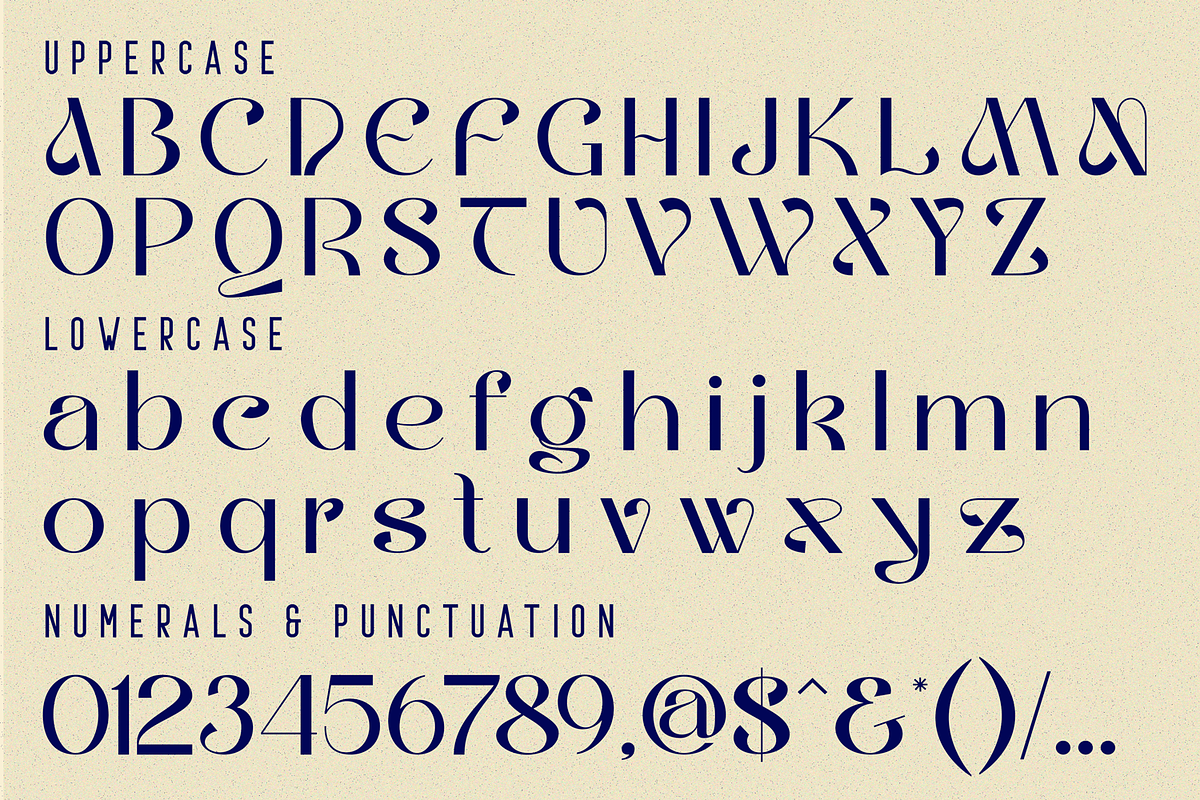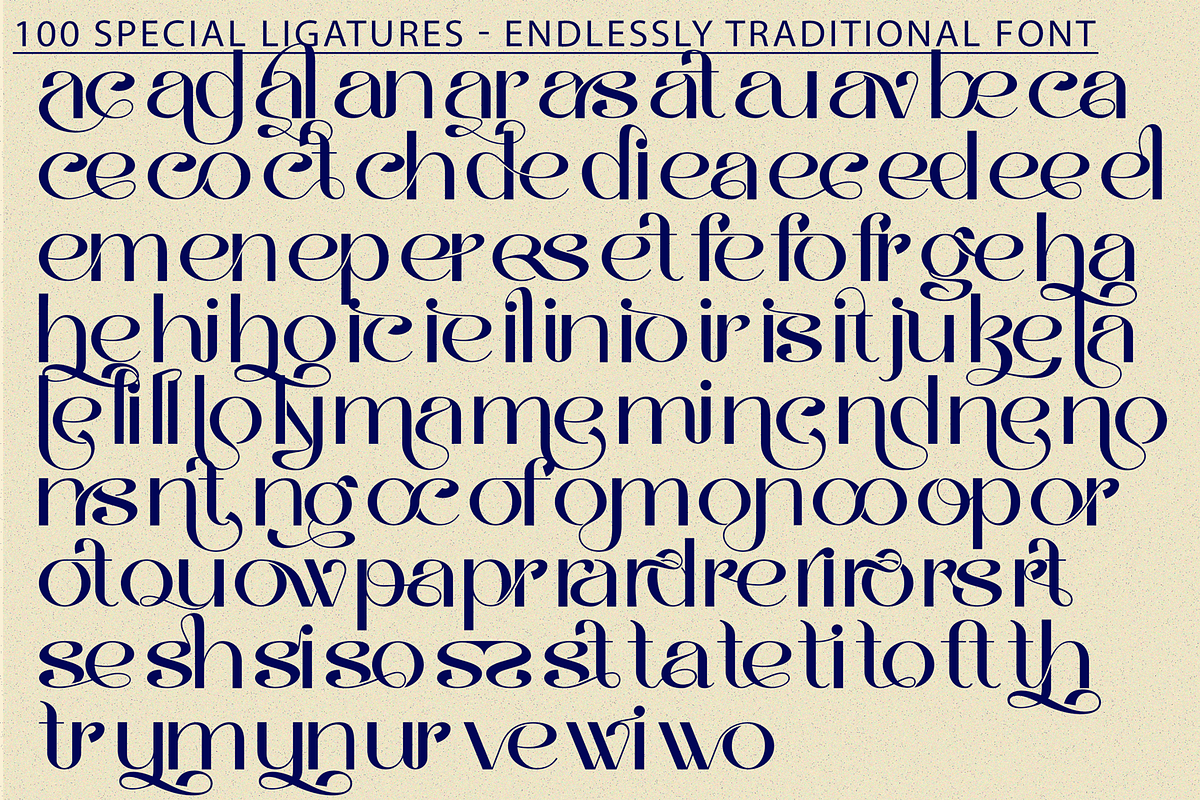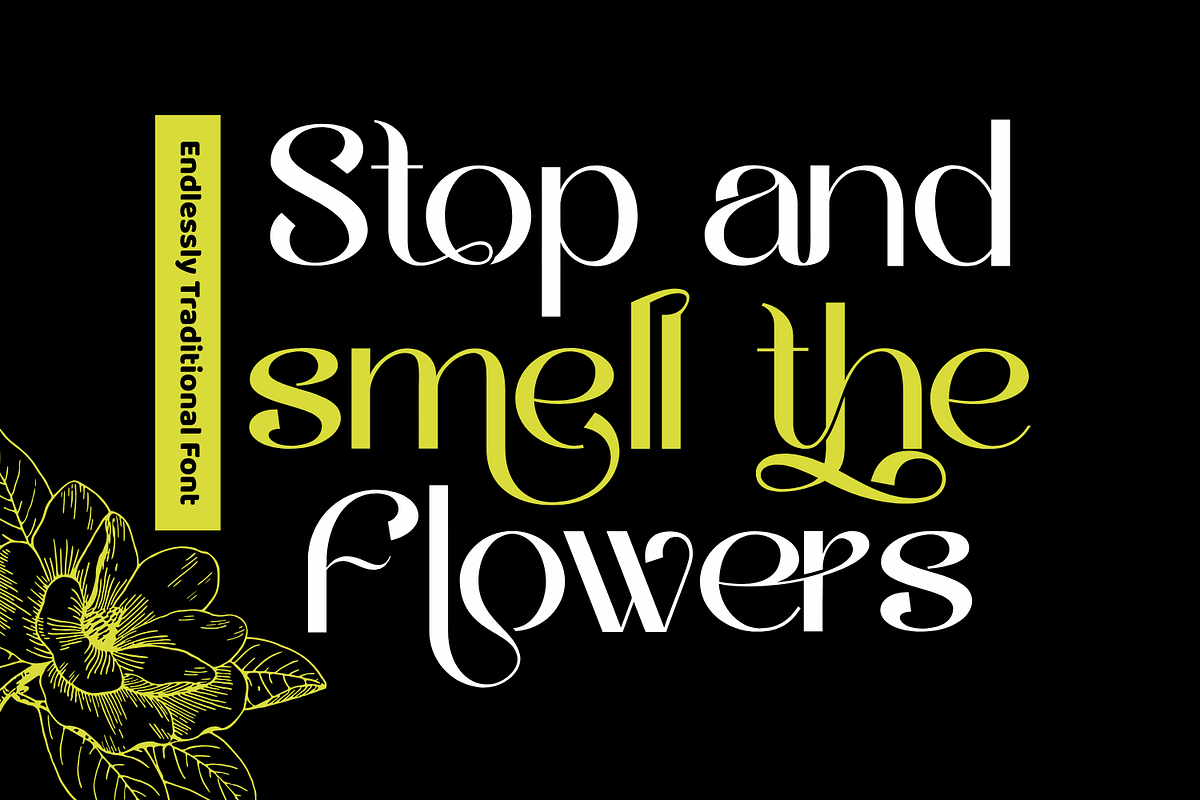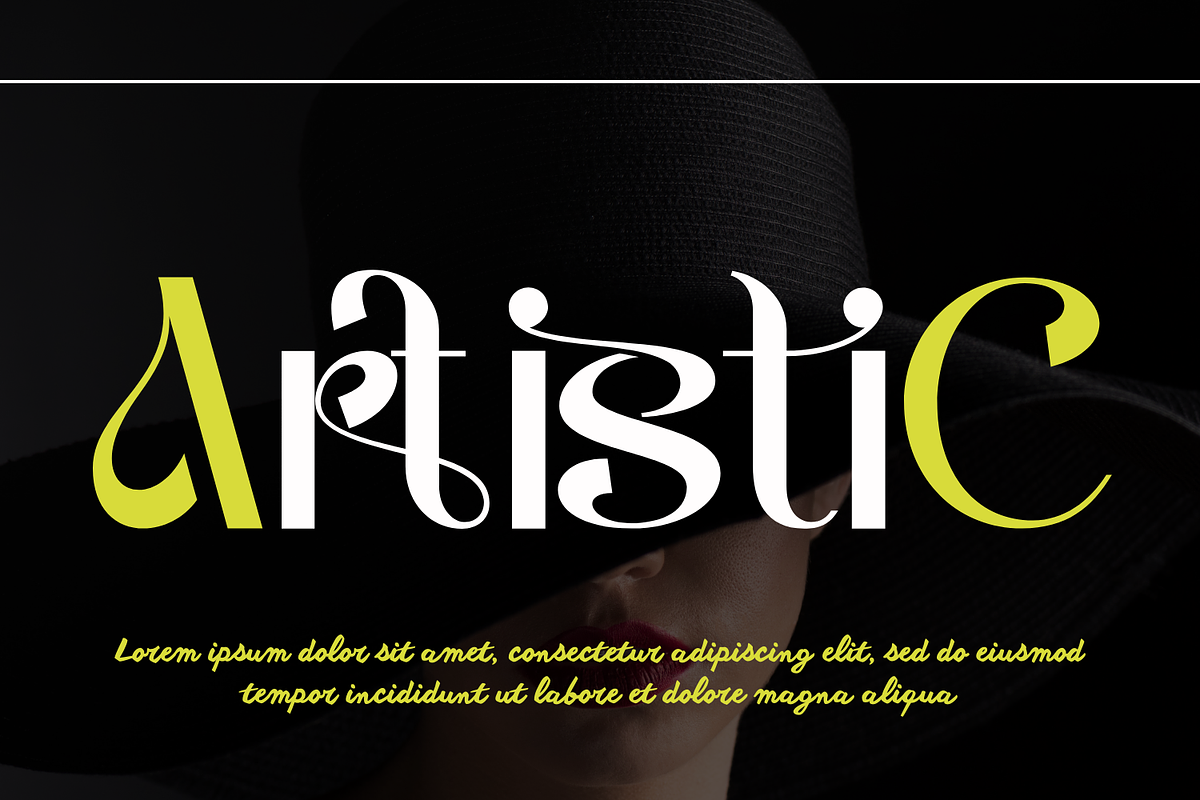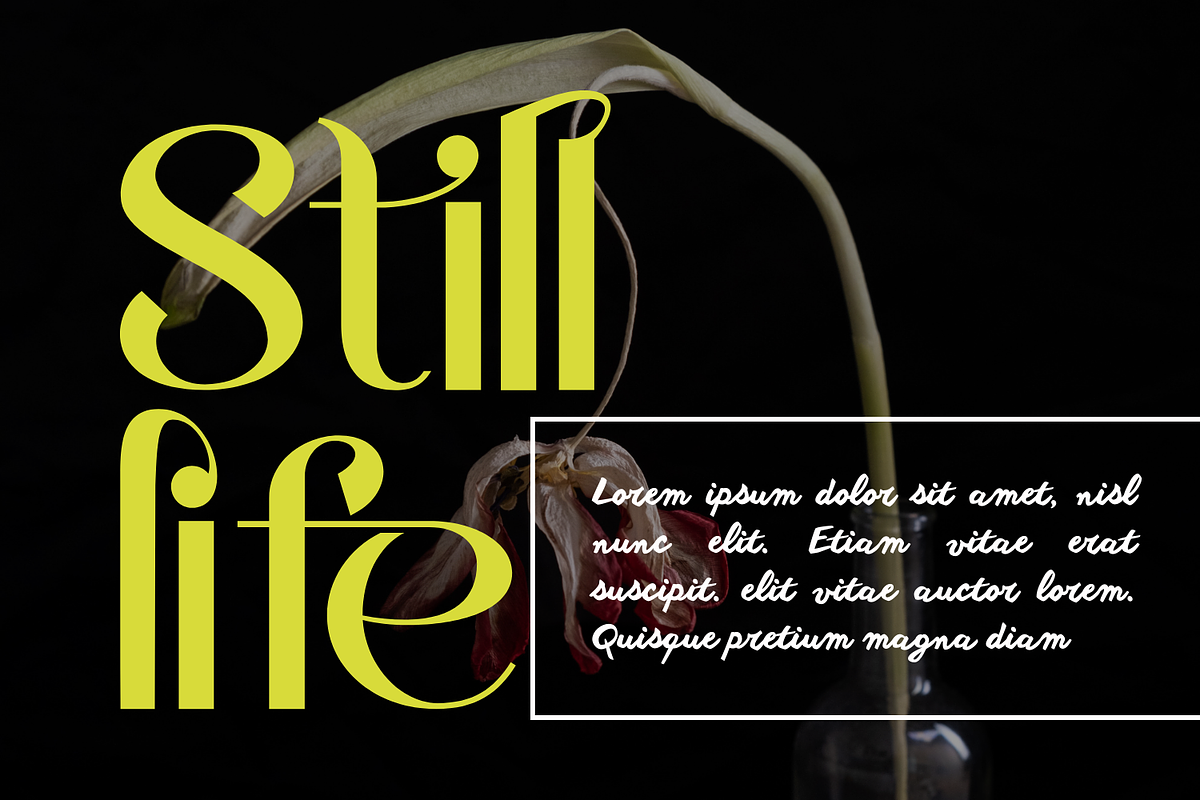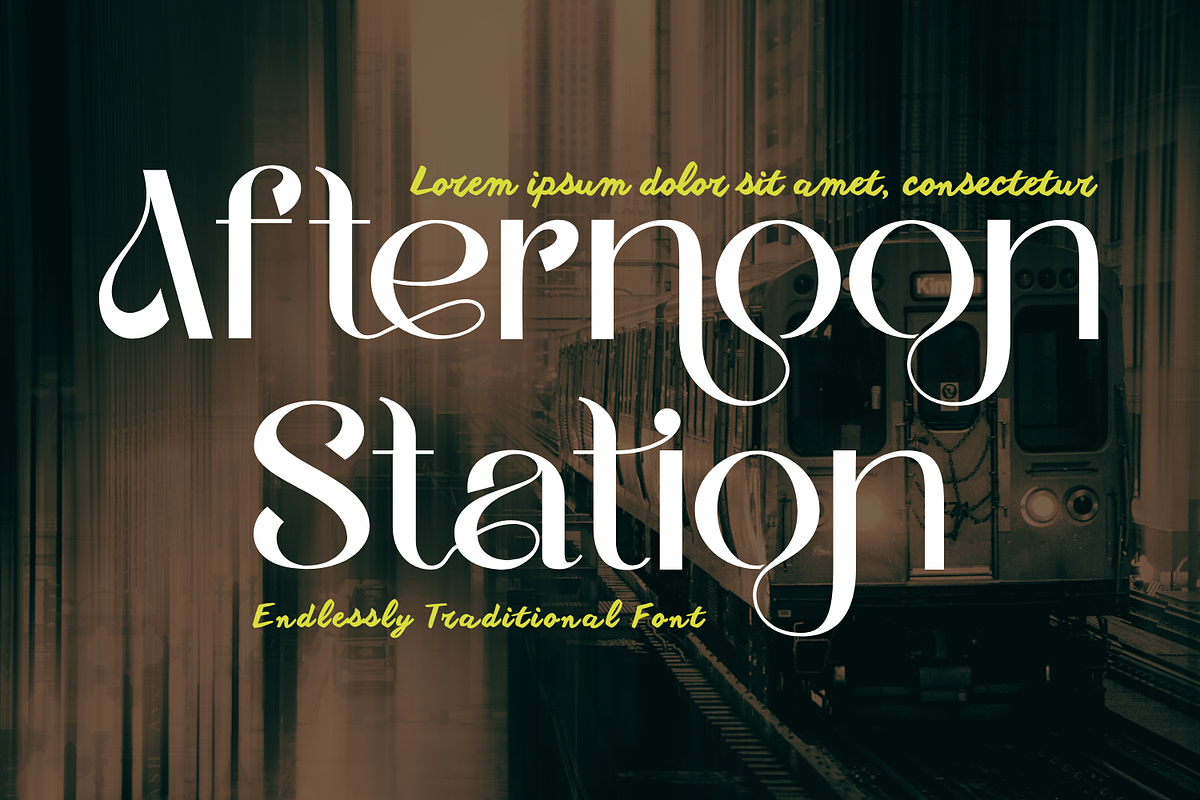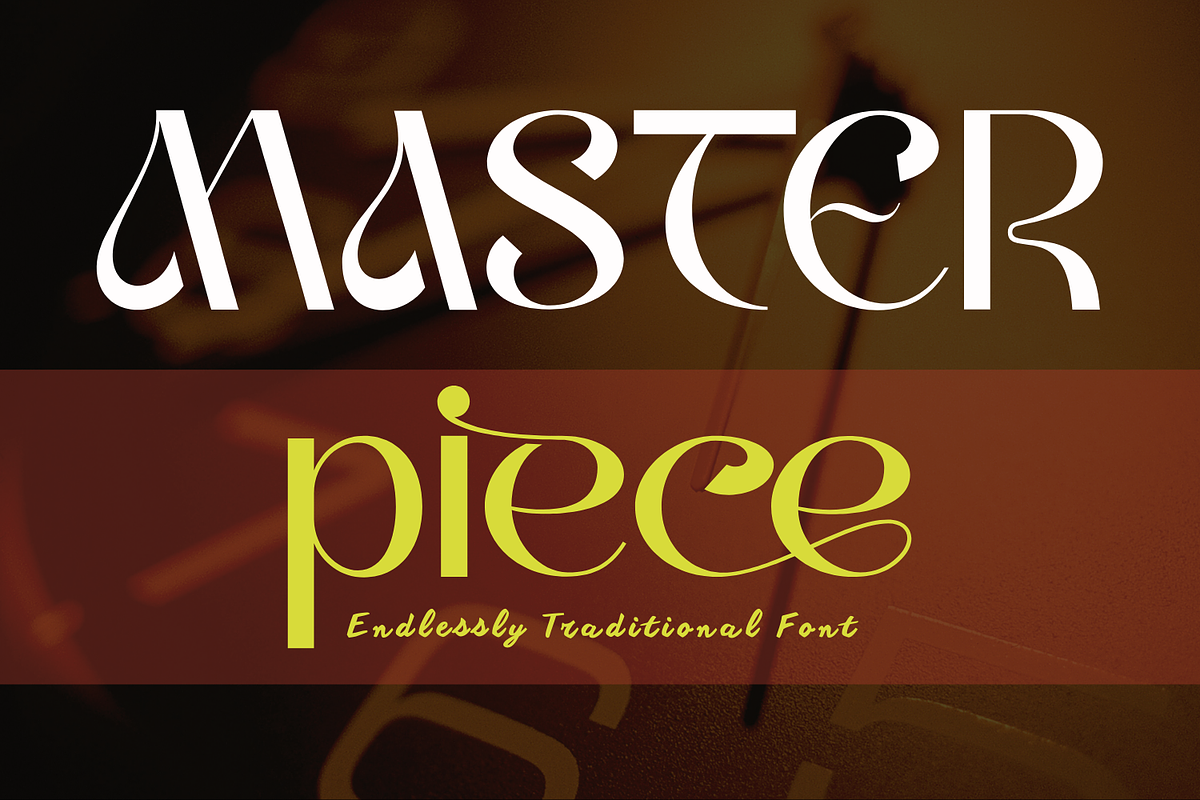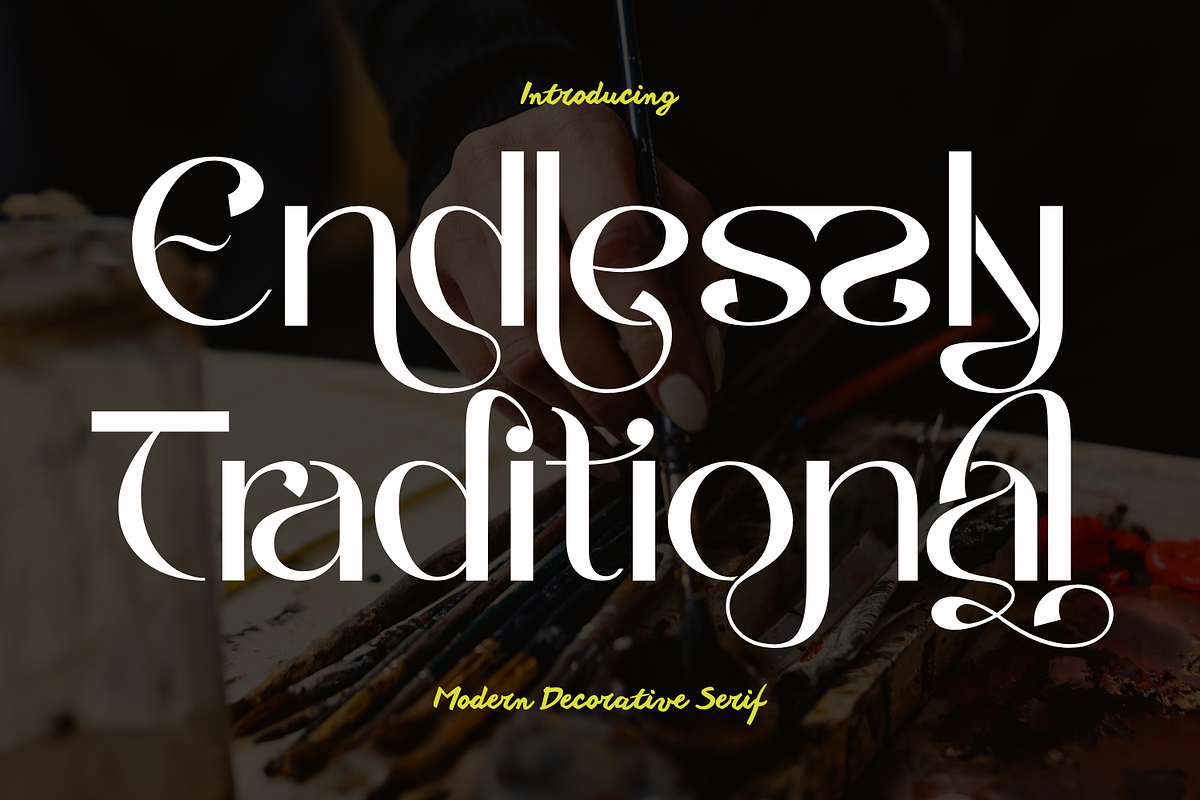
Endlessly Traditional - Ligature Fon
Endlessly Traditional - Ligature Font – A High-Contrast Ornamental Sans-Serif Font, a refined display sans-serif font that combines timeless elegance with bold ornamental flair. Each character is crafted with dramatic contrast, extended curves, and stylish swashes, bringing a sophisticated yet expressive personality to your typography. This font seamlessly balances tradition and modernity, making it an excellent choice for luxury branding, editorial design, wedding invitations, packaging, and creative campaigns that demand both impact and grace.
- Uppercase & Lowercase Letters
- ~100 Elegant Ligatures
- Accented Characters for Multilingual Support
- Alternates and Stylish Swashes
About 100 ligatures combined with Stylistic Alternates Font:
ac ad al an ar as at au av be ca ce ch co ct de di ea ec ed ee el em en ep er es et fe fo fr ge ha he hi ho ie ic il in io ir is it ju ke la le li ll lo ly ma me mi nc nd ne ng no nt ns oc of om on oo op or ot ou ow pa pr ra rd re ri ro rs rt se sh si so ss st ta te th ti to tr tt um un ur ve wi wo